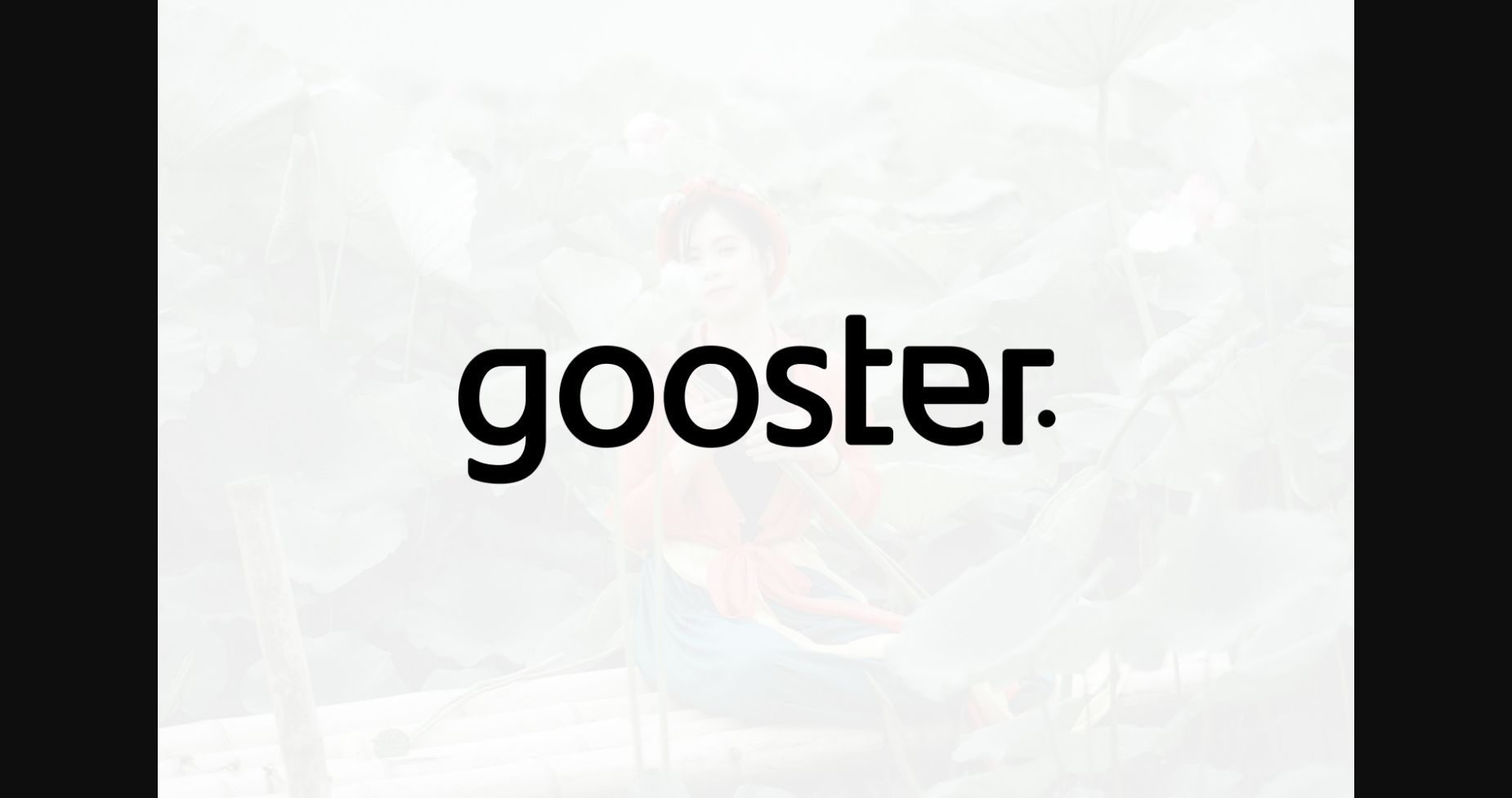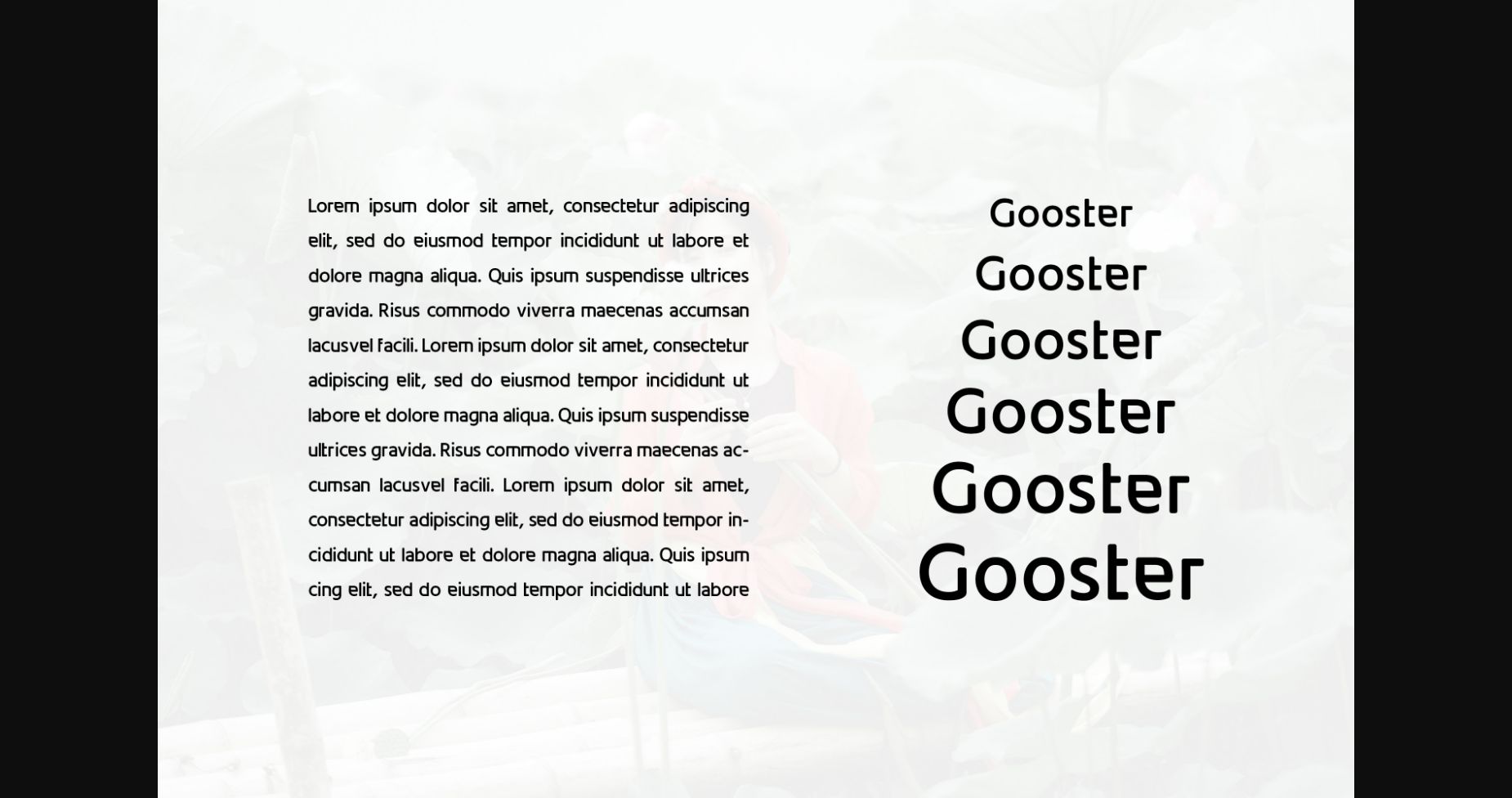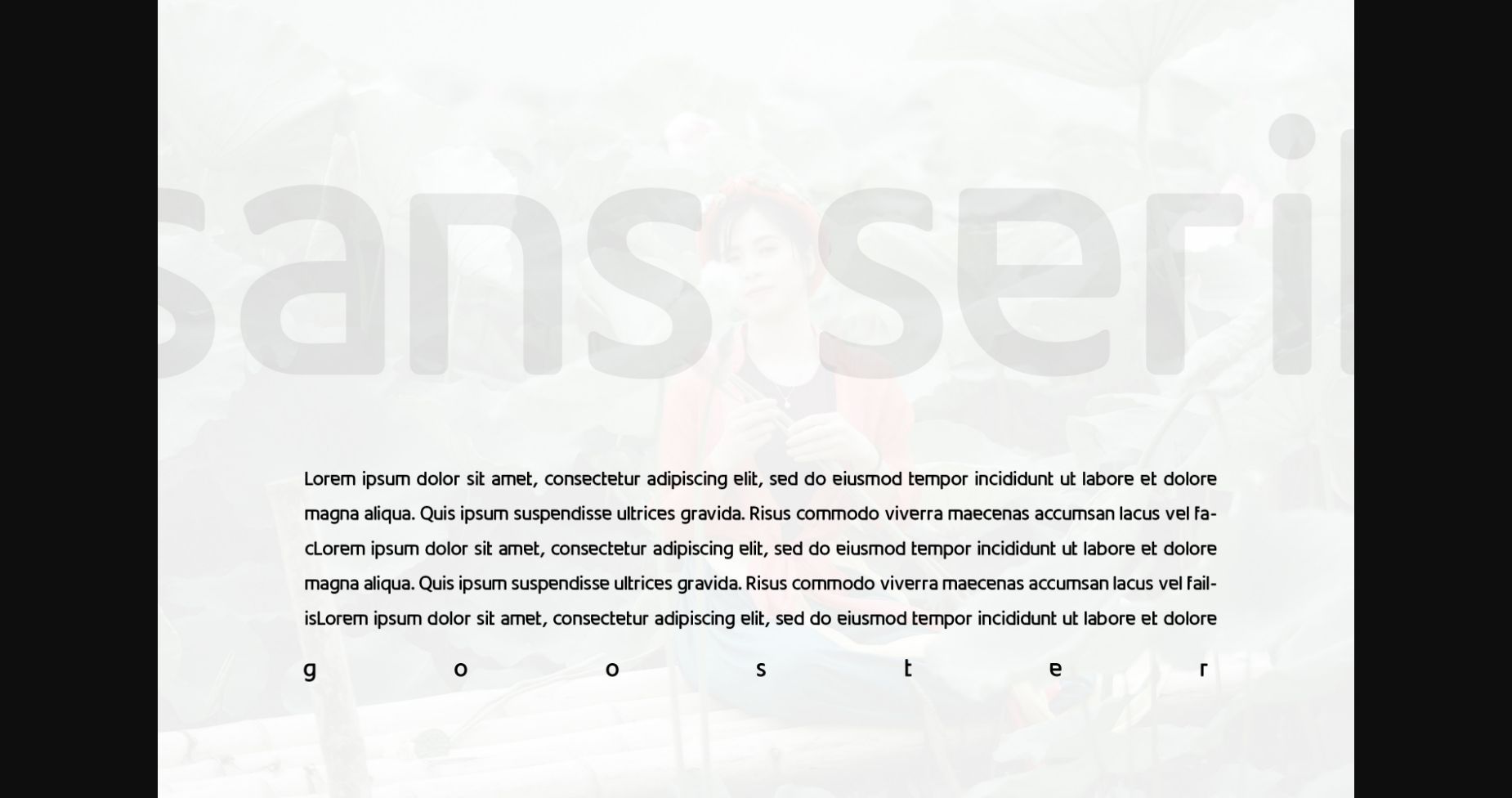
Gooster is a minimal and neat sans serif font. It can easily be matched to an incredibly large set of projects, so add it to your creative ideas and notice how it makes them stand out!